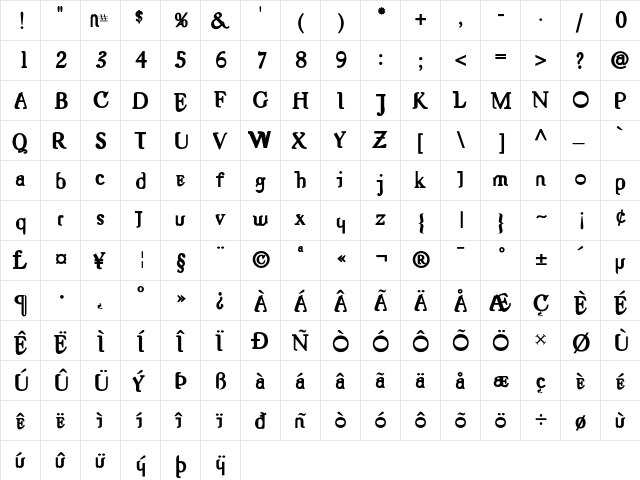
Nameless Bold
Design Context for Nameless Typeface
Nameless offers clean, dependable letterforms without strong stylistic allegiance, making it a practical choice for designers who need flexibility. The heavy weight commands attention and anchors typographic hierarchies.
Pro Tip: Pair Nameless with a font of contrasting weight or personality to build a more expressive typographic hierarchy.